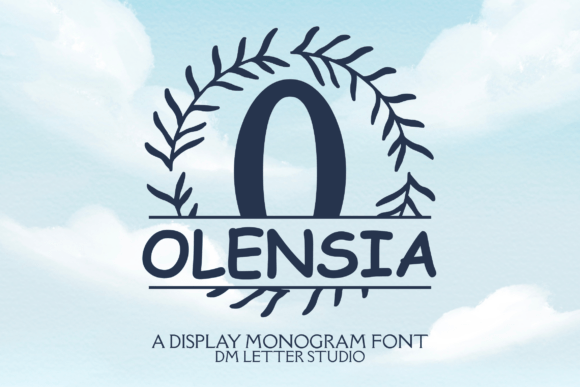
Olensia Split Monogram
A First Glance
The first time I saw Olensia Split Monogram, it stopped me. It’s not just a font—it’s a statement. The letters feel deliberate, each stroke carrying a weight that suggests craftsmanship and intention. There’s a subtle elegance in the way the characters are structured, with a balance between boldness and refinement. It leans into the decorative category, but without being overly ornate. This is a typeface that commands attention, yet remains approachable.
Olensia Split Monogram has a certain visual personality—confident, sophisticated, and slightly mysterious. It feels like something you’d see on a luxury brand’s packaging or a high-end editorial spread. The design language is modern typography at its best, with clean lines and a touch of artistry that elevates the ordinary.
Where Does It Belong?
Olensia Split Monogram isn’t for every project. It thrives in environments where visual impact matters. Think logos, brand identity systems, and premium packaging. It’s a display font that can carry a message with both authority and charm. Its unique structure makes it ideal for headers, titles, and any element that needs to stand out.
In logo design, Olensia Split Monogram can be a powerful tool. It offers a distinct character that can help a brand stand apart from the crowd. However, it should be used with care. It’s not meant for long-form text or body copy. When paired with a more readable sans serif or serif font, it can create a strong contrast that enhances the overall design.
Real-World Performance
Testing Olensia Split Monogram in real-life scenarios shows its strengths and limitations. In web design, it works best as a headline or call-to-action. On social media graphics, it adds a layer of sophistication that can elevate the visual appeal. For editorial design, it’s a great choice for headlines and pull quotes, especially when used alongside a clean sans serif font for balance.
On packaging, Olensia Split Monogram can make a significant difference. It adds a sense of quality and exclusivity. But remember, it’s not always about being flashy. Sometimes, the right use of a decorative font can subtly reinforce a brand’s identity without overwhelming the viewer.
When working on Canva templates or Cricut projects, Olensia Split Monogram can bring a creative edge. It’s a commercial font that can be used across various printable designs, from invitations to merchandise. However, it’s important to test it in different contexts to ensure it maintains its visual integrity.
Readability and Hierarchy
One of the key considerations when using Olensia Split Monogram is readability. While it looks stunning in large sizes, it can become less legible at smaller scales. Always test it in black and white to ensure it holds up in different lighting conditions. This is especially important for digital products and web-based content.
When creating hierarchy, Olensia Split Monogram should be used strategically. It’s best suited for short phrases, taglines, and decorative accents rather than lengthy paragraphs. Pairing it with a more functional font, such as a sans serif or serif font, can help maintain clarity while still allowing the decorative elements to shine.
Designer Notes
- Test it in black and white: Ensure it remains visually appealing and readable in monochrome settings.
- Check small-size readability: Avoid using it for body text unless the context allows for it.
- Try it on real mockups: See how it performs in the actual environment where it will be used.
- Compare uppercase and lowercase: Understand how the font behaves in different text formats.
- Review spacing: Make sure the kerning and tracking are consistent and natural.
- Test it beside other fonts: Explore how it interacts with serif, sans serif, script, and handwritten styles.
Conclusion
Olensia Split Monogram is a versatile and stylish font that can add a unique flair to your design projects. Whether you’re working on a logo, a poster, or a product label, it has the potential to elevate your work. However, it requires thoughtful application to ensure it complements rather than overwhelms the design.
As a designer, I recommend using Olensia Split Monogram with confidence, but always with awareness of its limitations. It’s a premium font that deserves respect and consideration. When used wisely, it can become a valuable part of your design toolkit, helping you create visually compelling and professionally executed work.